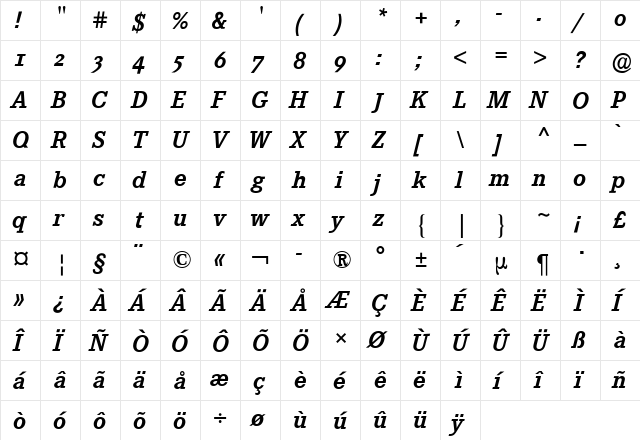
Corporate E Expert BQ Bold Italic Font Preview
Design Context for Corporate E Expert BQ Typeface
Corporate E Expert BQ is a composed and adaptable typeface that performs quietly and consistently across a wide range of design contexts. The slanted form adds forward momentum and visual energy. The heavy weight commands attention and anchors typographic hierarchies.
Pro Tip: Try Corporate E Expert BQ for annotation and caption copy alongside an upright companion — the contrast in angle creates a dynamic but ordered typographic system.